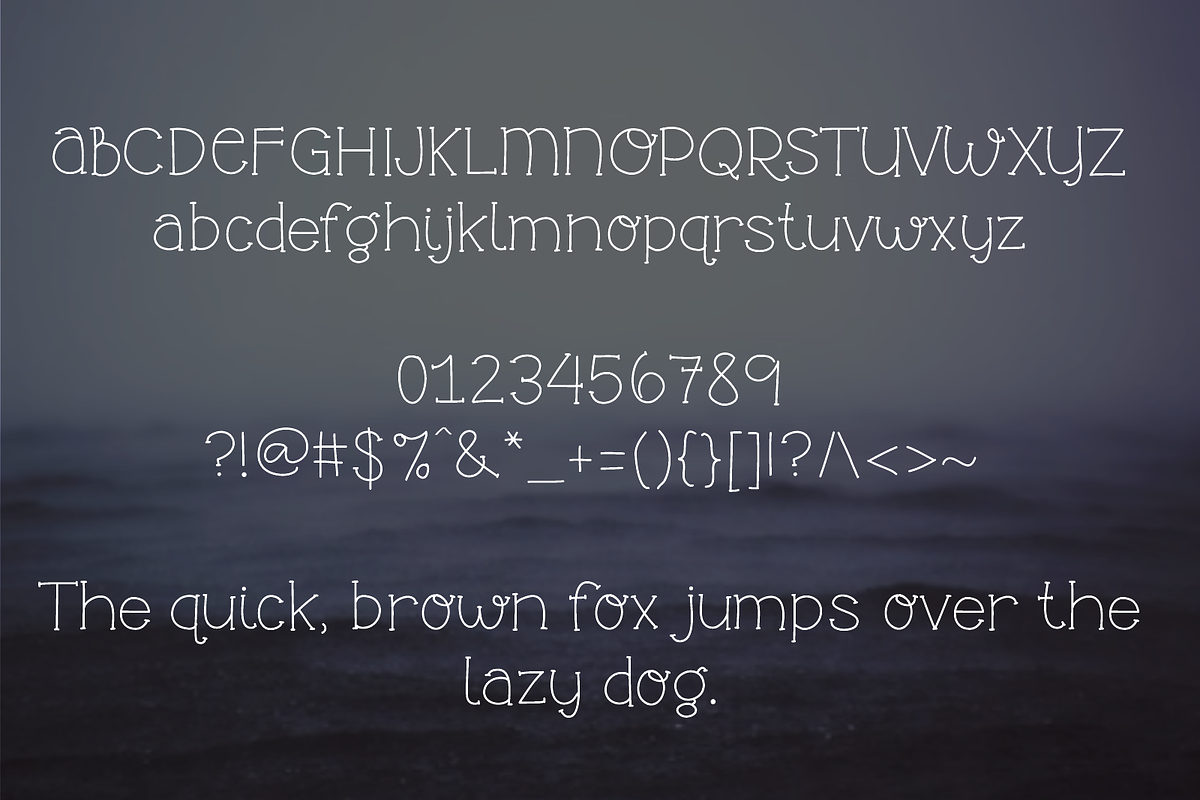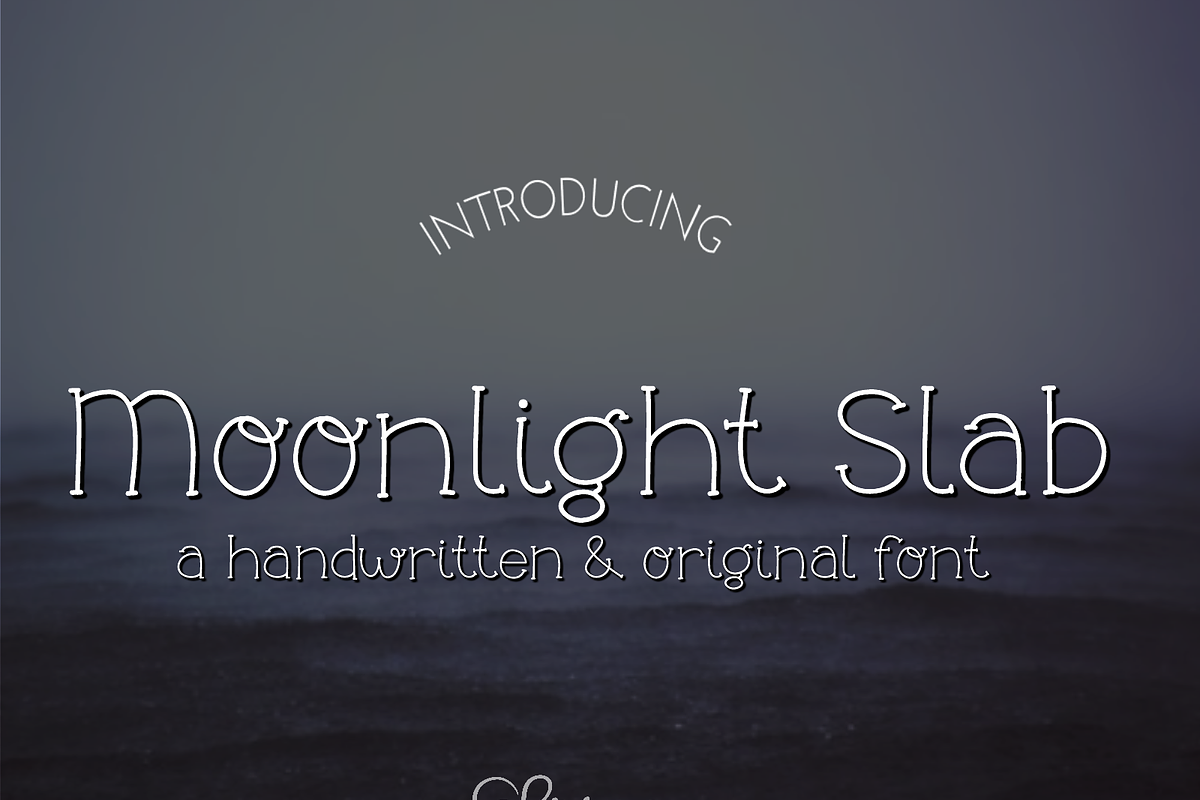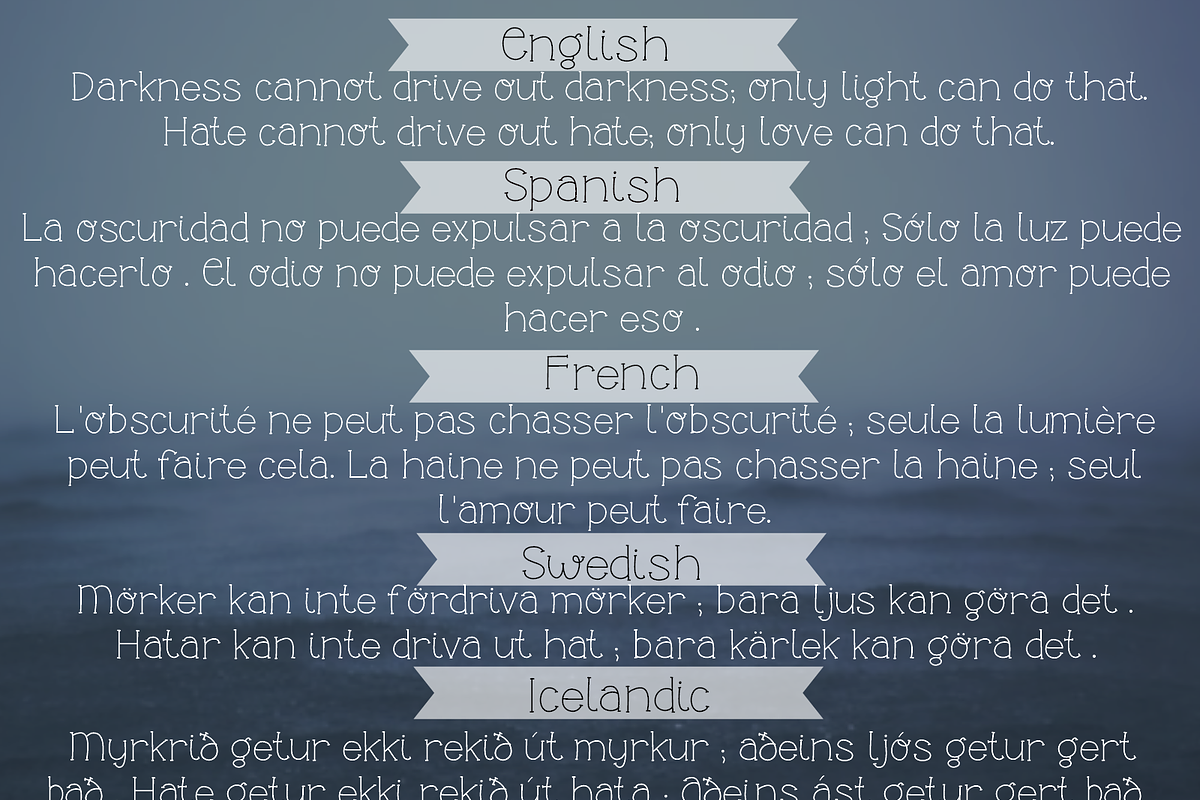
Moonlight Slab- Handwritten Font
Moonlight Slab- Handwritten Font by Sabrina Schleiger Design is a font selected for branding, posters, packaging, typography.
- It includes Basic Latin & Latin accents.
Moonlight Slab- Handwritten Font by Sabrina Schleiger Design fits naturally into Branding, posters, packaging, typography.